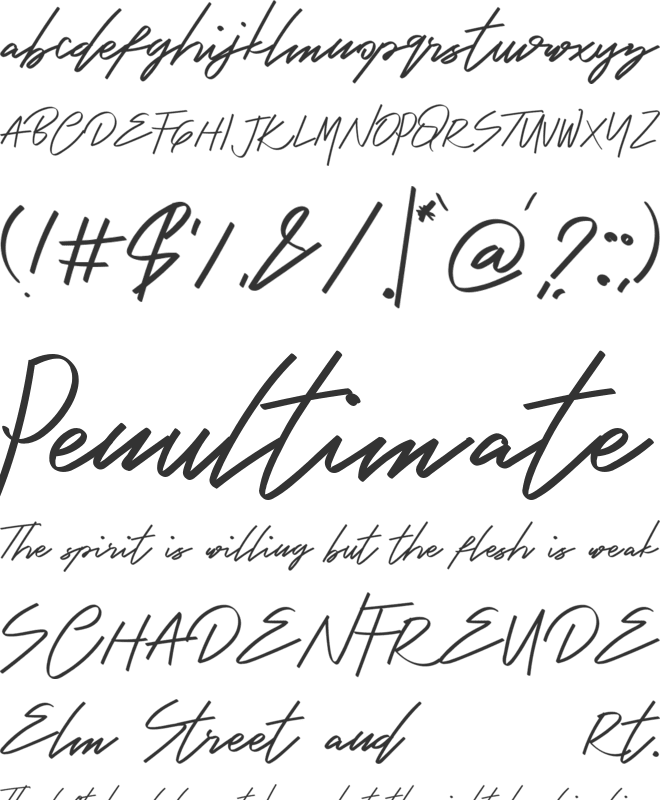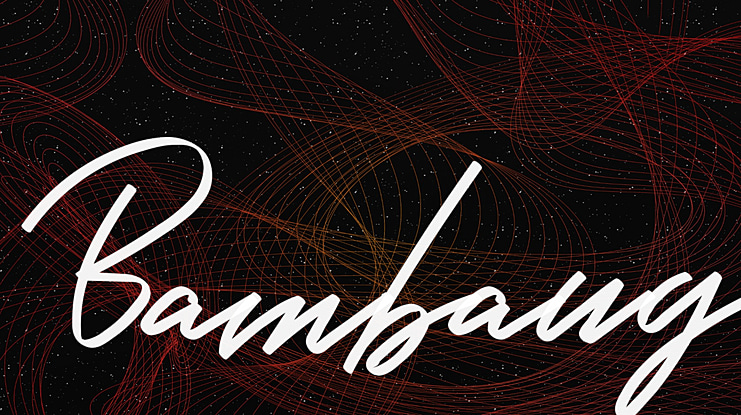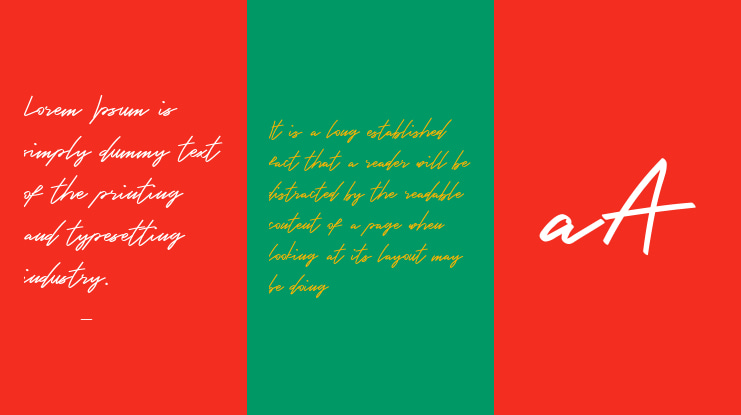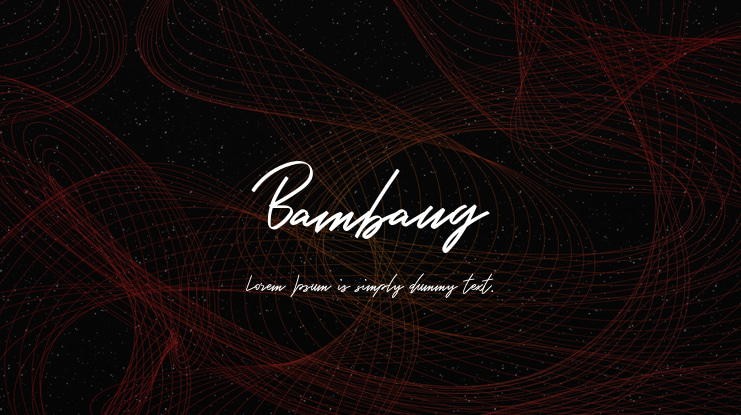
Bambang Font
This enchanting font will turn any creative idea into a true standout.
Perfect fit for all of your logos, branding, social media, etc.
Get creative with its unique playfulness, and use it to brighten up any crafting project!